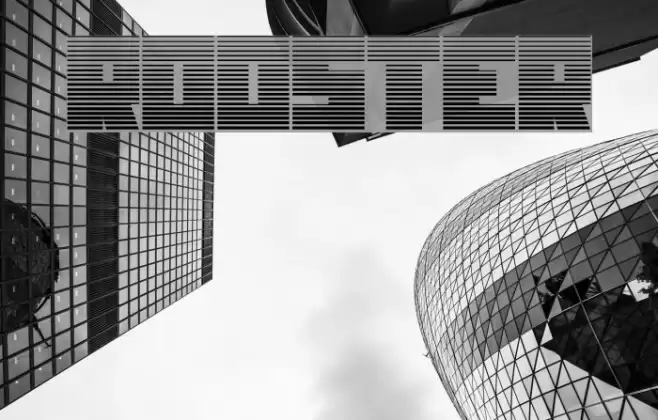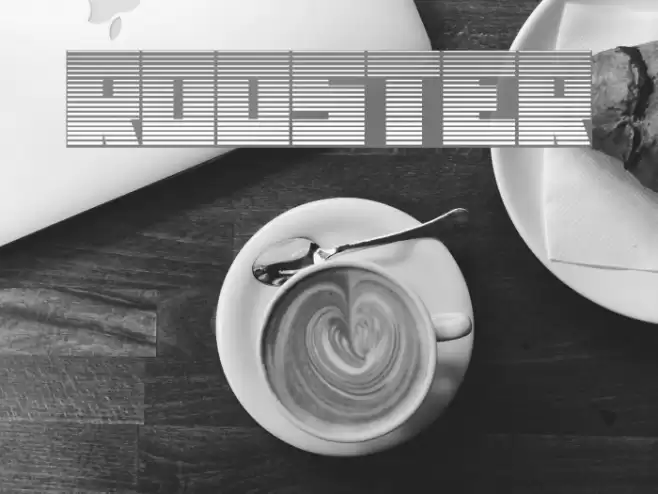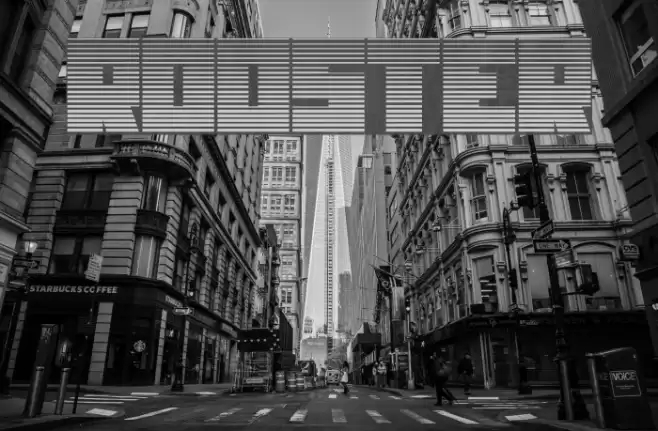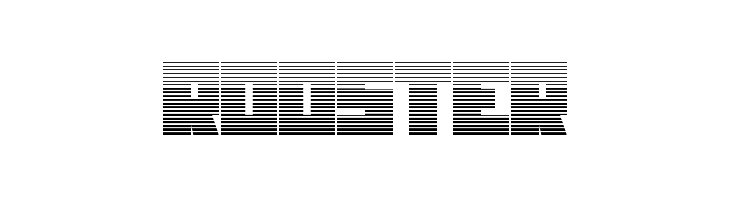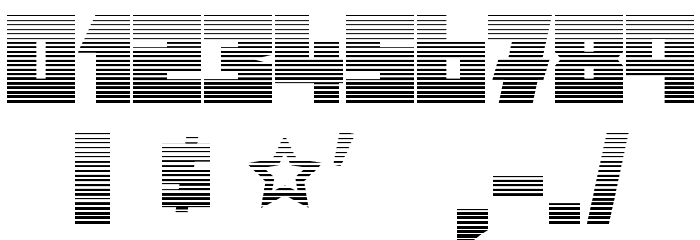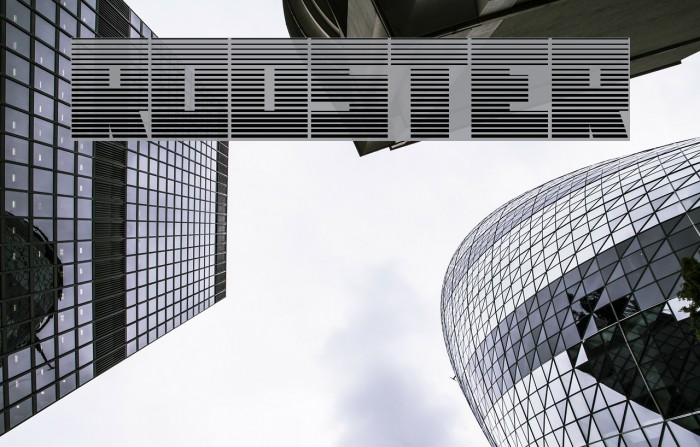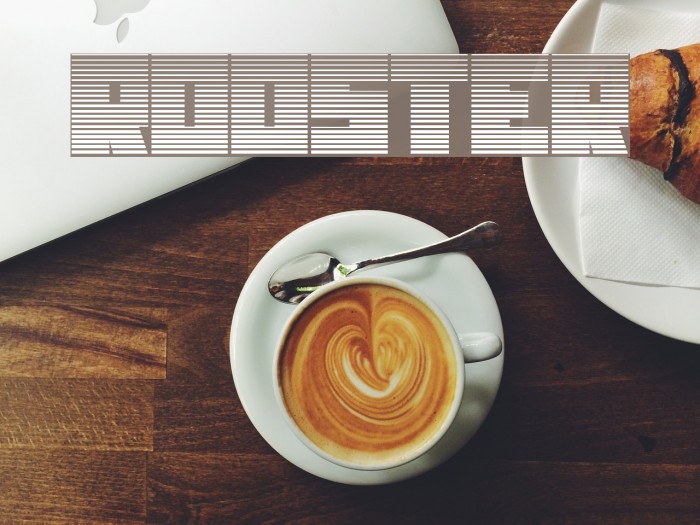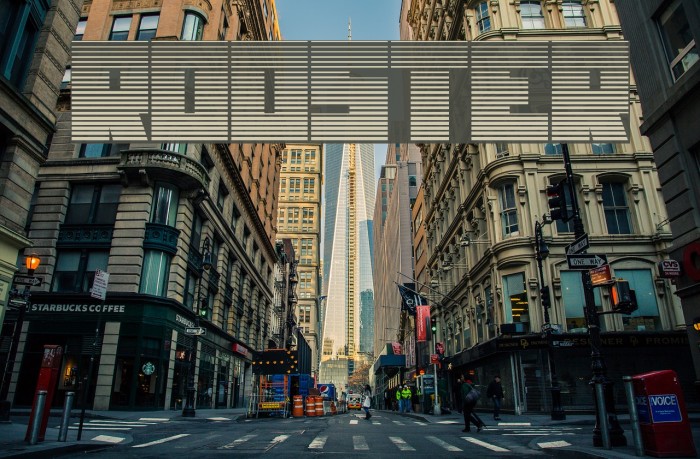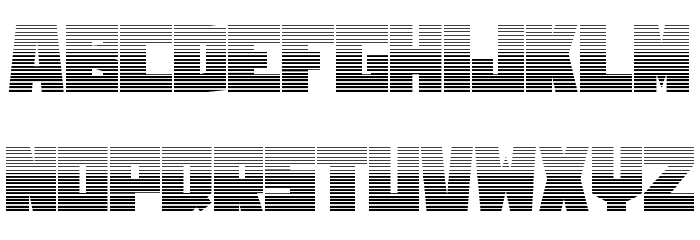
ROOSTER Font
ROOSTER Description
This font features a unique design with horizontal lines creating a striped effect across each character. The bold, geometric shapes are filled with evenly spaced lines, giving it a modern and dynamic appearance. The uppercase letters are particularly striking, with a strong presence that makes them ideal for attention-grabbing headlines. The numbers and special characters maintain the same striped pattern, ensuring consistency throughout the typeface. This font's distinct style is perfect for projects that require a bold and contemporary look.
A bold, striped font with a modern, geometric design from Uncategorized fonts.
- Proposed Projects: Ideal for branding, posters, and any design work that requires a bold, modern aesthetic.